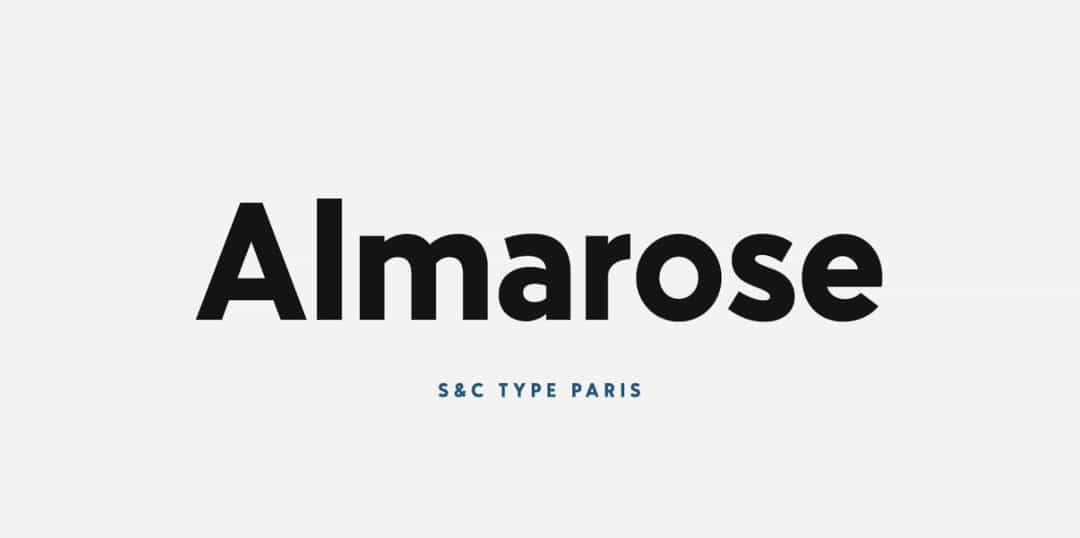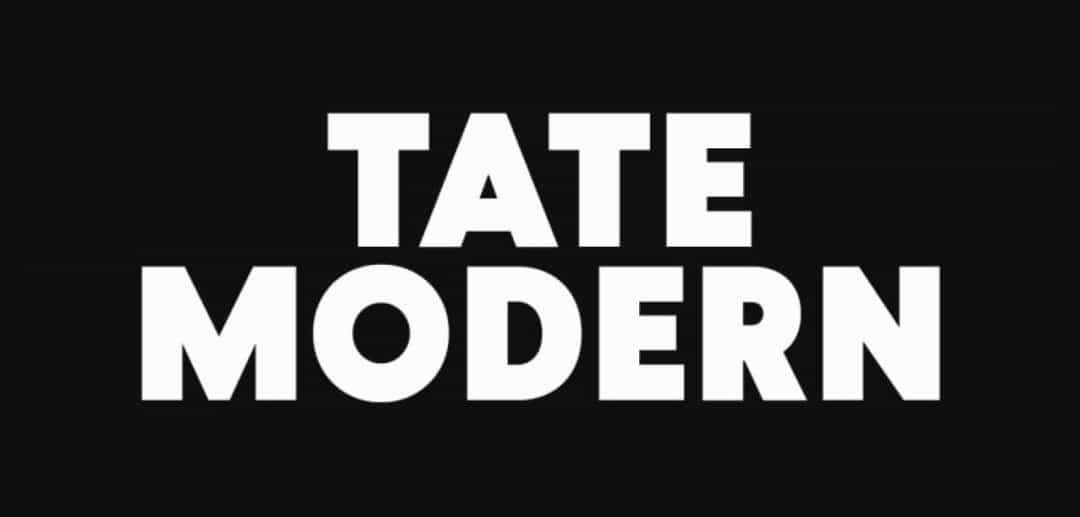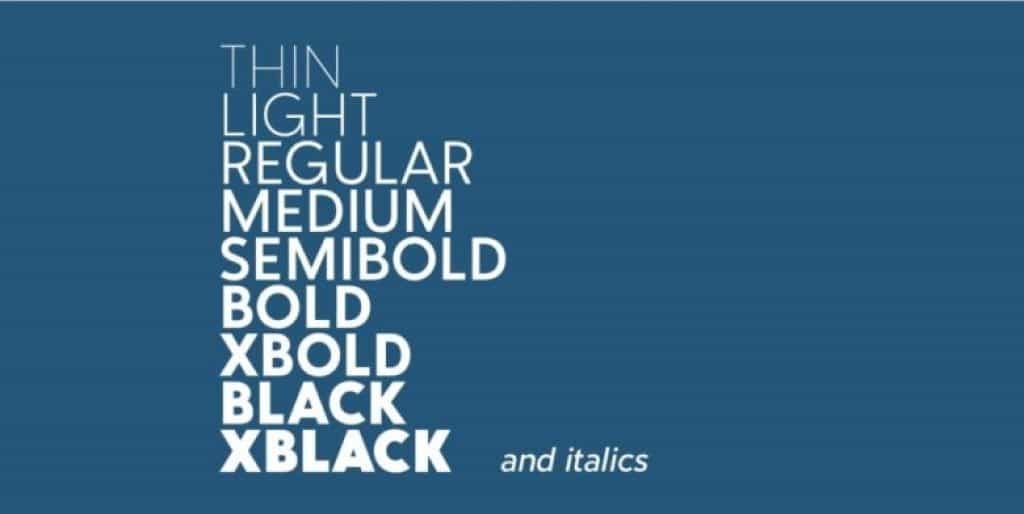
Almarose is an OpenType geometric sans serif typeface created by Fanny Coulez and published by S&C Type. Practical with an eye-catching aesthetic, Almarose features 9 weights and italics ranging from ExtraBlack to Thin to meet all types of design needs including web or headline work. Thank you very much.